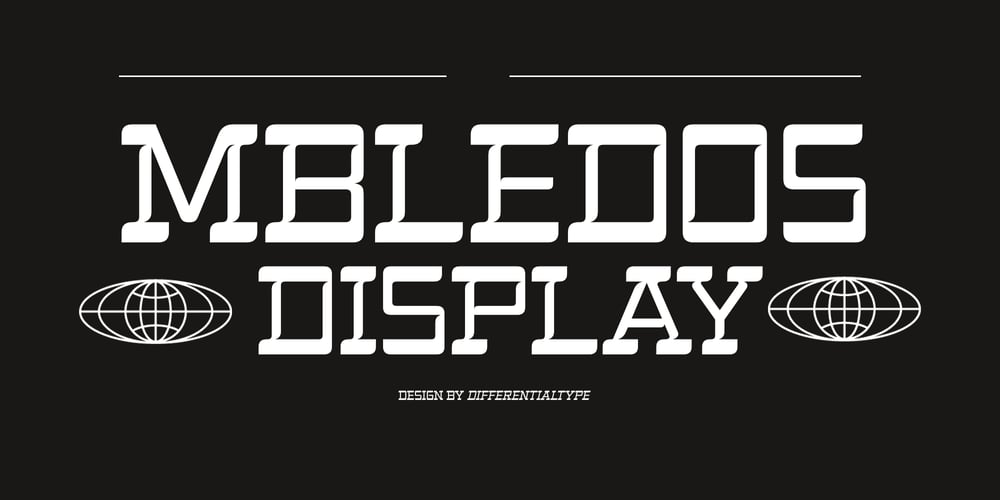
Mbledos Display
Mbledos Display font
Mbledos Display Font Family was designed by Sidik Sidik and published by Differentialtype. Mbledos Display contains 4 styles and family package options. Unveiling Mbledos Display – a contemporary and distinctive display font, designed to catch your eye. Comprising four diverse styles – regular, outline, and a chic italic variation, this font’s versatility makes it an irresistible choice. Whether it’s for crafting a captivating title, creating a standout logo, making headlines with news content, or simply bringing an informal yet robust charm to any design, Mbledos Display is the perfect fit!